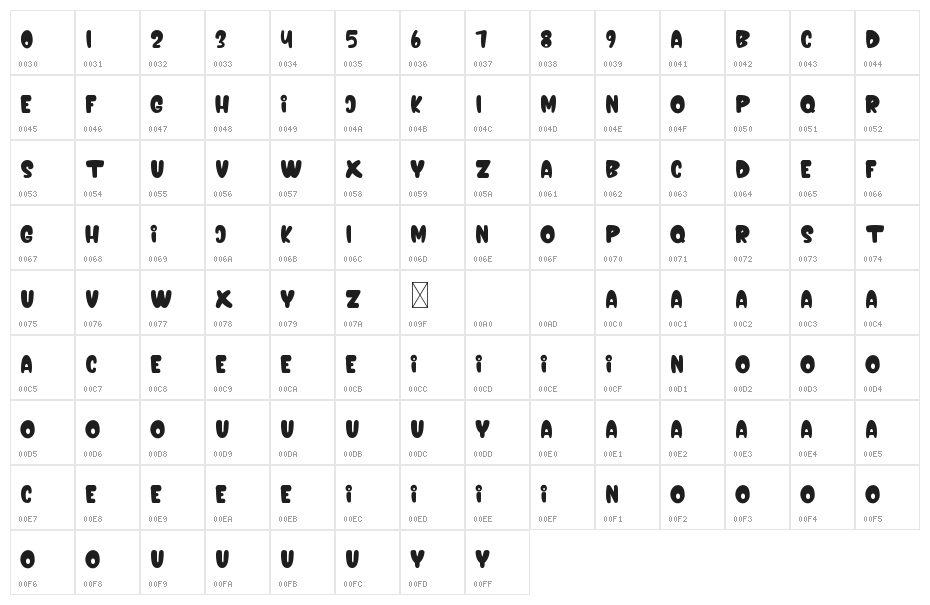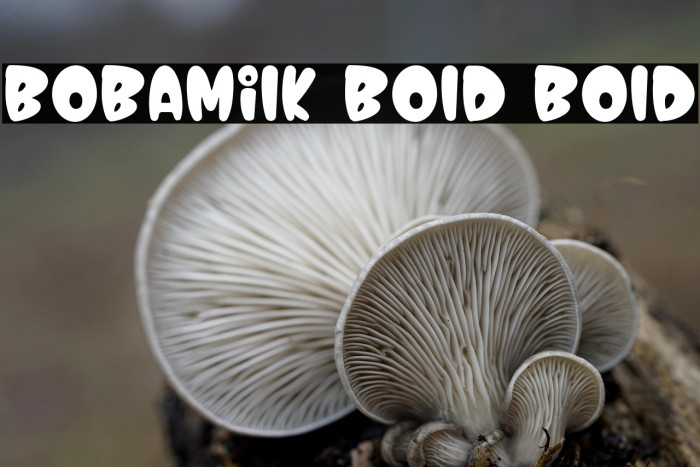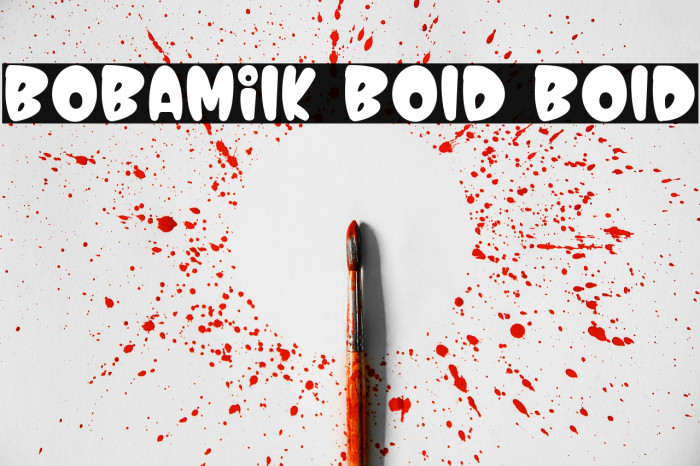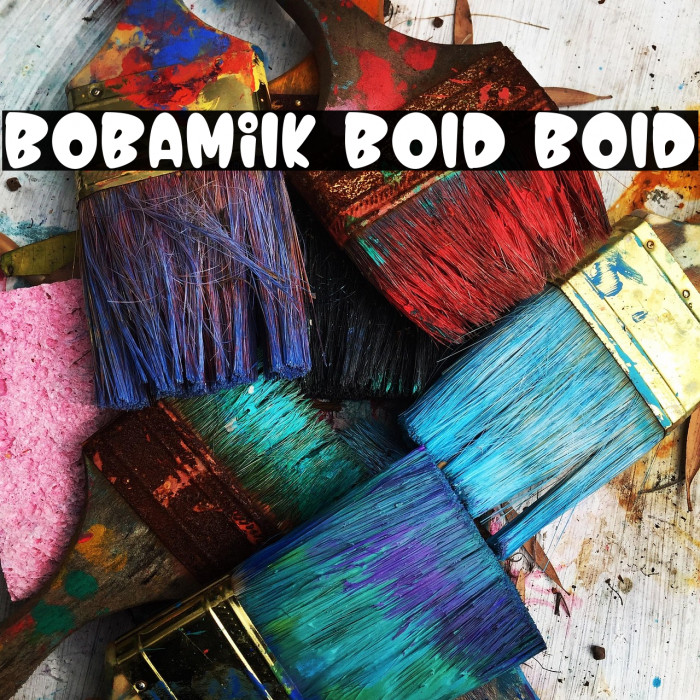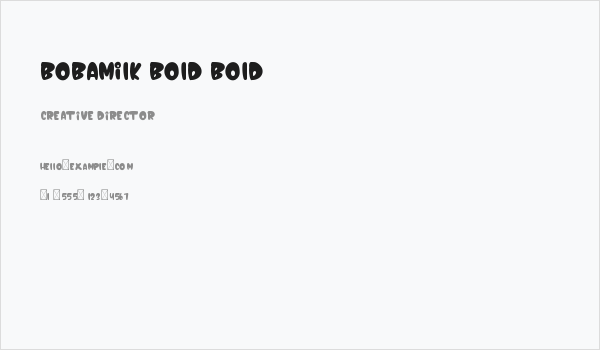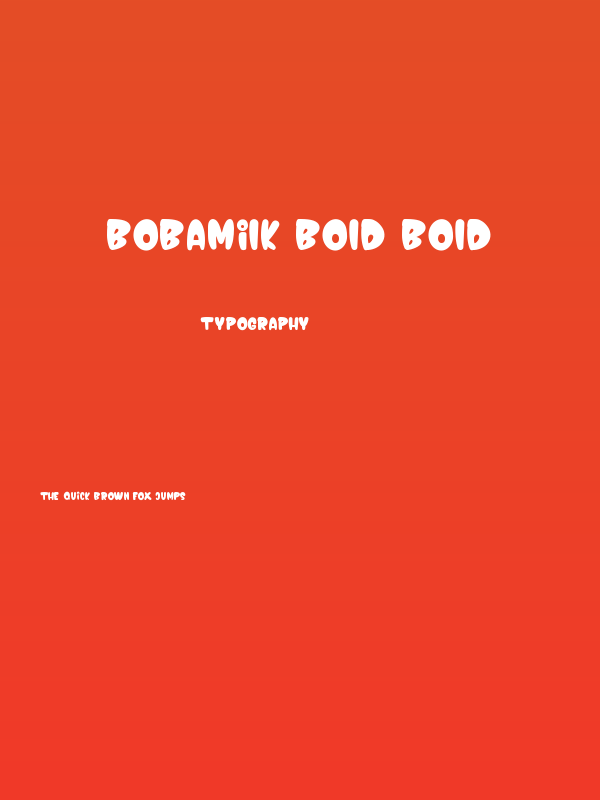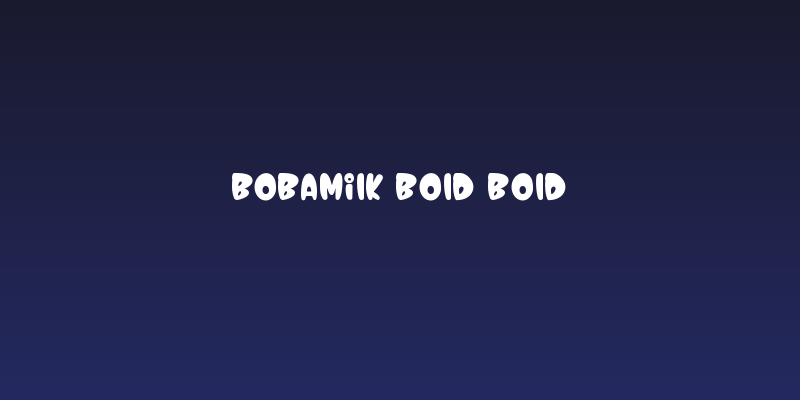
Bobamilk Bold Bold Font
Bobamilk Bold Bold Description
This font features a playful and bold design with rounded, bubbly characters that exude a sense of fun and whimsy. The letters are thick and substantial, providing a strong visual impact. The rounded edges and uniform stroke width contribute to a friendly and approachable appearance. This style is consistent across both uppercase and lowercase letters, as well as numbers and special characters. The overall look is cohesive and maintains a sense of balance, making it suitable for projects that require a lively and engaging typeface.
Overall StylePlayful
Proposed ProjectsIdeal for children's books, playful branding, party invitations, and any project that requires a fun and engaging typeface.